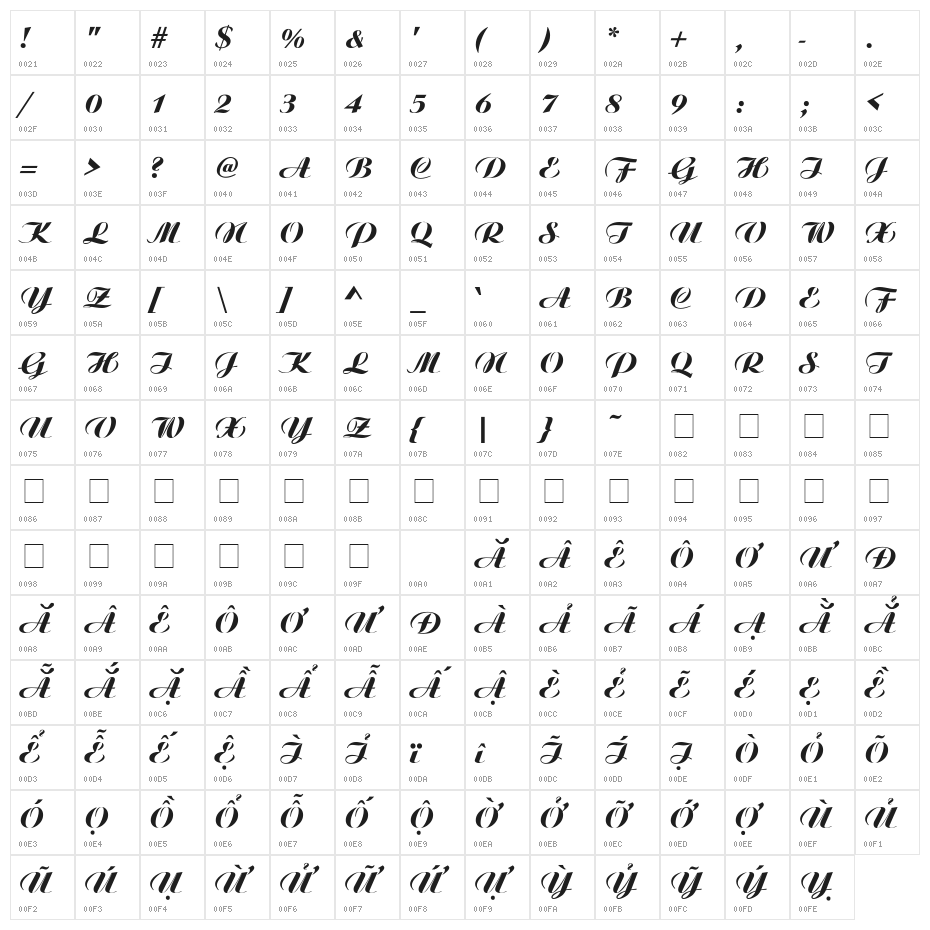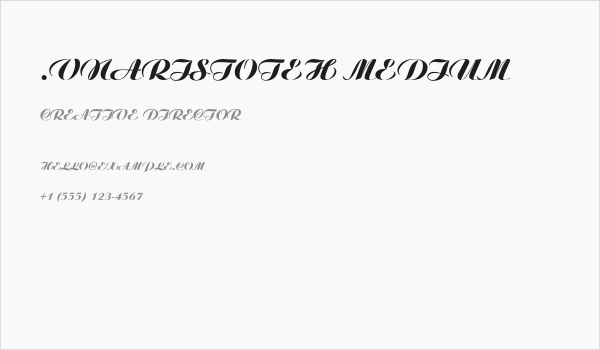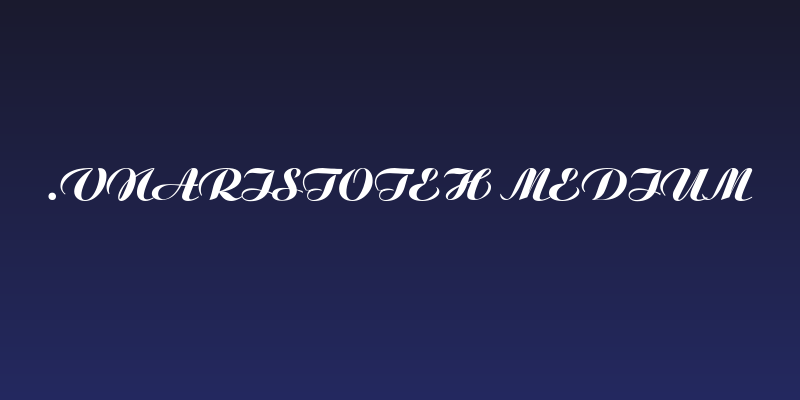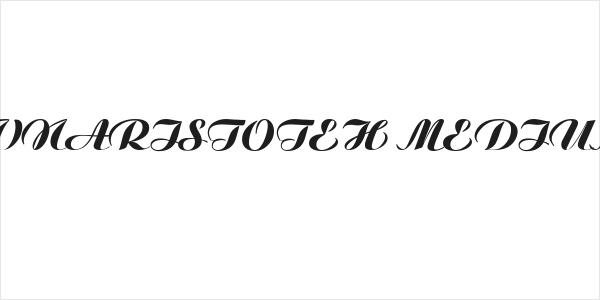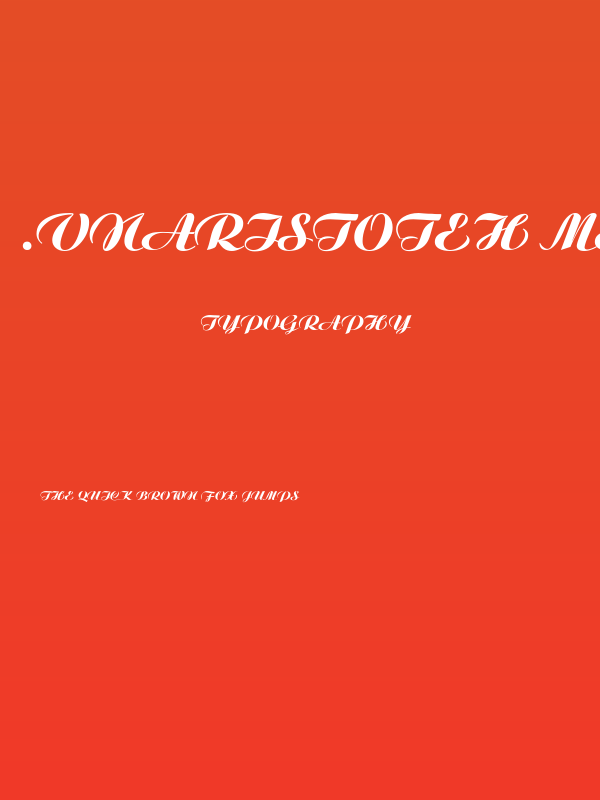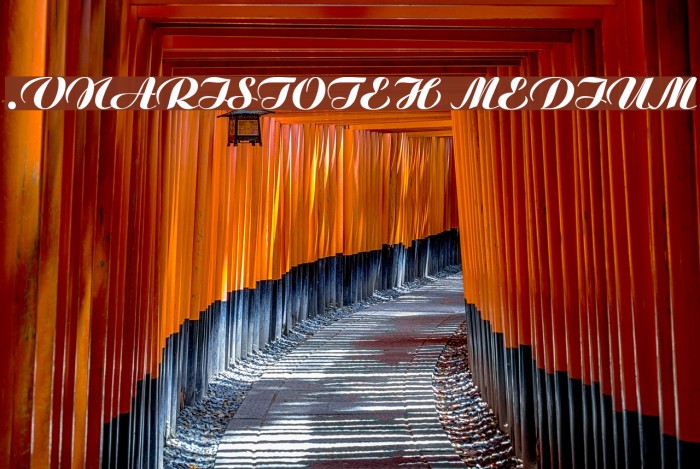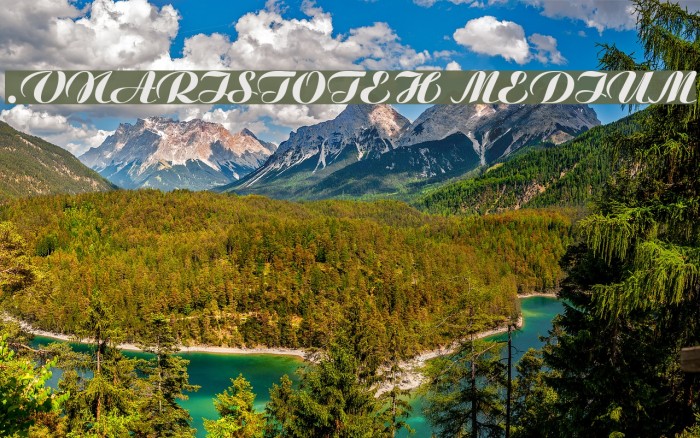
.VnAristoteH Medium Font
.VnAristoteH Medium Description
This font exudes elegance and sophistication with its flowing script style. The characters are beautifully crafted with sweeping curves and flourishes, giving it a classic and timeless appeal. The uppercase letters are particularly ornate, with intricate details that add a touch of luxury. The lowercase letters maintain a consistent style, complementing the uppercase with their graceful loops and tails. The numerals are bold and clear, ensuring readability while maintaining the overall aesthetic. Special characters are thoughtfully designed, fitting seamlessly with the rest of the font. This font is perfect for projects that require a touch of elegance and refinement.
| Overall Style | Classic |
| Use Case | Logos, Invitations, Branding |
| Proposed Projects | Ideal for wedding invitations, luxury branding, elegant signage, and high-end product packaging. |